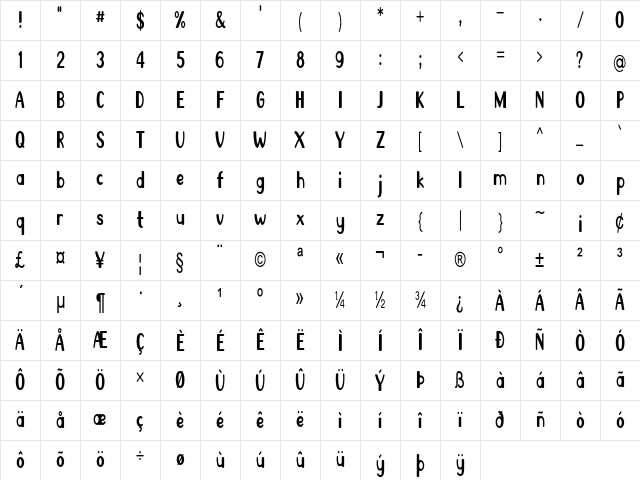
Collinsworth Condensed Regular
Style: Condensed Regular
Collinsworth Family
Collinsworth Condensed Regular
Design Context for Collinsworth
Collinsworth is a composed and adaptable typeface that performs quietly and consistently across a wide range of design contexts. Its narrow stance lets it pack a punch even in space-constrained designs.